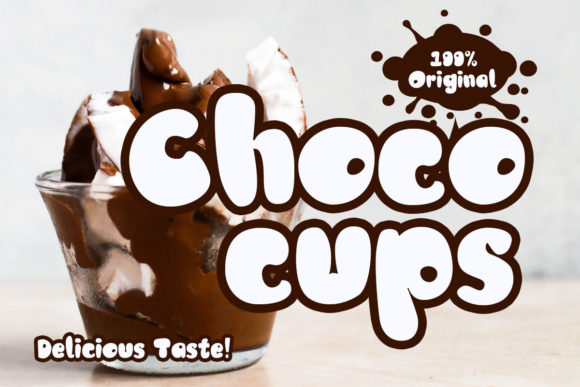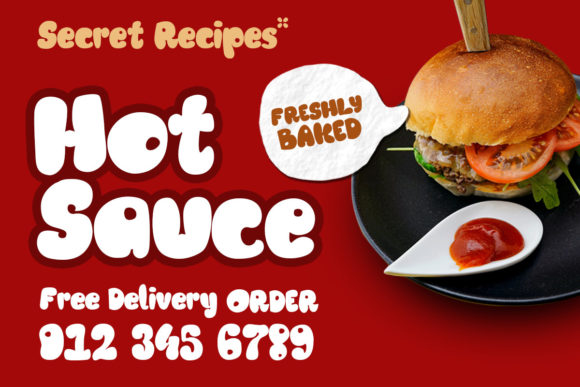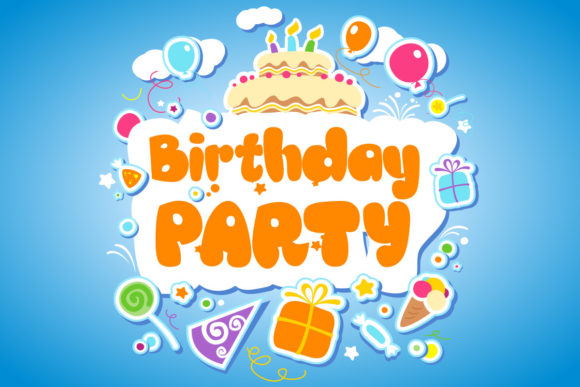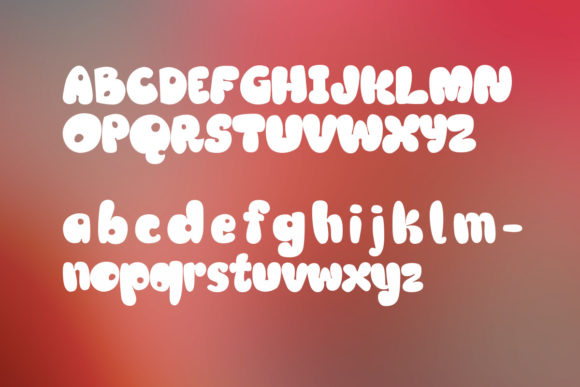
Introducing Blobsy Font: The Cute, Friendly, and Retro-Styled Display Font
Are you tired of using the same old fonts in your designs? Look no further! Blobsy Font is here to add a touch of cuteness, friendliness, and retro charm to your creations. This versatile display font is perfect for a wide range of designs, from t-shirts and sportswear to logos, advertisements, clothing, and more.
What Makes Blobsy Font So Special?
Blobsy Font is a unique and eye-catching font that is sure to make your designs stand out. Its cute and friendly style is reminiscent of retro fonts from the 80s and 90s, but with a modern twist. The font features rounded edges, soft curves, and a playful vibe that is sure to appeal to designers and crafters alike.
Perfect for a Variety of Designs
Blobsy Font is an incredibly versatile font that can be used for a wide range of designs. Here are just a few ideas to get you started:
- T-shirts and sportswear: Add a fun and playful touch to your apparel designs with Blobsy Font. It’s perfect for creating eye-catching slogans, logos, and graphics.
- Logos and branding: Use Blobsy Font to create a unique and memorable logo for your business or brand. Its retro style and friendly vibe make it perfect for companies that want to stand out.
- Advertisements: Add a touch of whimsy and fun to your ad designs with Blobsy Font. It’s sure to grab attention and leave a lasting impression.
- Clothing and accessories: From tote bags to hats, Blobsy Font is perfect for adding a playful touch to your clothing and accessory designs.
Why Choose Blobsy Font?
So why choose Blobsy Font over other display fonts? Here are just a few reasons:
- Unique style: Blobsy Font has a one-of-a-kind style that is sure to make your designs stand out.
- Ease of use: Blobsy Font is easy to read and use, making it perfect for designs where clarity is important.
- Versatility: Blobsy Font can be used for a wide range of designs, from digital to print.
- Retro charm: Blobsy Font has a fun and playful retro vibe that is sure to appeal to designers and crafters who love vintage styles.
Tips for Using Blobsy Font
Here are a few tips for getting the most out of Blobsy Font:
- Use it as a statement font: Blobsy Font is perfect for making a statement in your designs. Use it as a headline font or for highlighting important text.
- Experiment with colors: Blobsy Font looks great in a variety of colors, from bright and bold to pastel and soft.
- Pair it with other fonts: Blobsy Font pairs well with a range of other fonts, from sans-serif to script fonts.
Blobsy Font is a unique and versatile display font that is perfect for designers and crafters who want to add a touch of cuteness, friendliness, and retro charm to their creations. With its wide range of uses and ease of use, Blobsy Font is sure to become a favorite in your font collection. So why wait? Download Blobsy Font today and start creating!